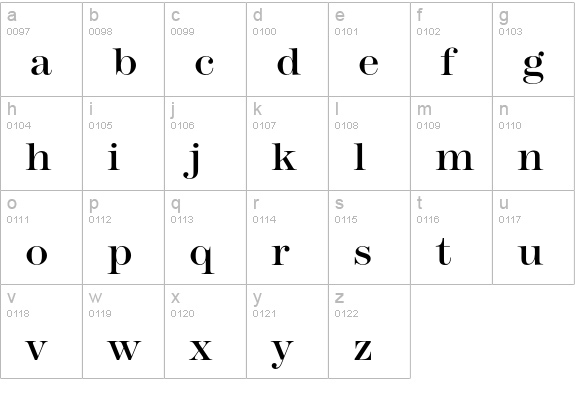
ModernNo216EF-Medium is a balanced, medium-weight variant in the ModernNo216EF typeface family \xE2\x80\x94 well suited to sub-headlines, navigation, and balanced editorial work.
ModernNo216EF-Medium is a stylish and versatile font that exudes contemporary elegance and sophistication. With its clean lines and balanced proportions, this font is the perfect choice for a wide range of design projects, from branding to editorial layouts. What sets ModernNo216EF-Medium apart is its seamless blend of modernity and classic design elements, making it a timeless choice for any design endeavor. Whether you are creating a sleek logo or designing a sleek website, this font will effortlessly elevate your work to new heights. And the best part? ModernNo216EF-Medium is freely available to download at FontsMarket.com, making it accessible to all designers looking to add a touch of sophistication to their projects. So why wait? Download ModernNo216EF-Medium today and start creating stunning designs that stand out from the crowd.